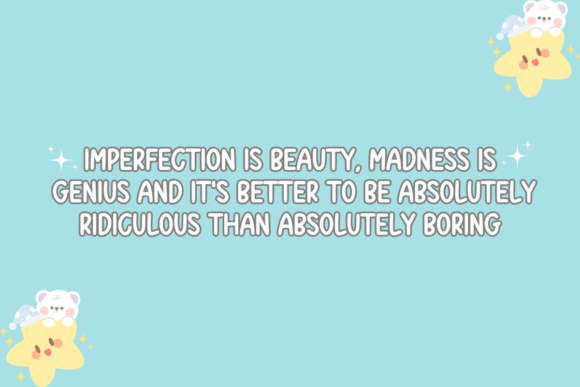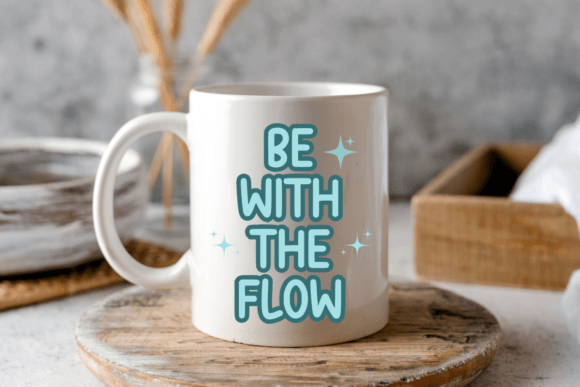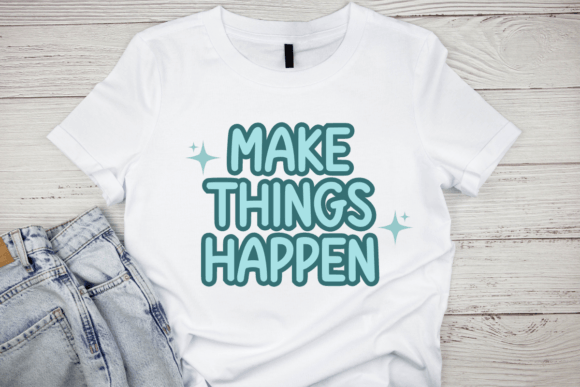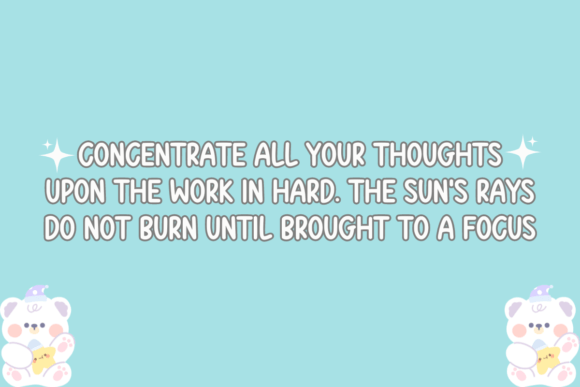
Introduction to Mother House Font
Have you ever stumbled upon the perfect font while browsing through design resources, and it instantly sparks an idea for your next creative project? That’s exactly what happened to many designers when they discovered the Mother House Font. This adorable sans serif font is not only visually appealing but also incredibly versatile, making it a valuable addition to any designer’s toolkit.
Whether you’re working on a new sticker design, crafting a personalized planner, or creating a custom SVG quote, the Mother House Font is the perfect choice. Its high-quality design ensures that your project will stand out from the crowd, and its transparent background makes it easy to use with various design elements. With the Mother House Font, you can take your creative projects to the next level, and that’s why it’s a must-have for designers who want to elevate their work.
Key Features of Mother House Font
- Features a transparent background, allowing for effortless layering and customization.
- Comes in a single weight, ideal for designers who want a clean and minimalist aesthetic.
- Designed with a modern and elegant feel, making it perfect for a wide range of creative projects, from branding to editorial design.
Honest Review: Mother House Font
I recently stumbled upon the Mother House Font, and I must say, it’s a fantastic addition to any designer’s library. The free download made it an instant winner in my book, and the transparent background is a great feature for any creative project.
- What works well: ✨ The high-quality design of the font is immediately noticeable. The unique and elegant style makes it perfect for a wide range of applications, from logos to titles.
- What works well: ✨ The font is highly versatile and can be easily customized to fit any design style.
While the Mother House Font excels in many areas, there are a few limitations to consider. ⚠️ The font may not be suitable for very small text sizes, as the details can get lost.
Overall, I’m very impressed with the Mother House Font. It’s a valuable design resource that can elevate any creative project. The high-quality design and transparent background make it a great choice for designers looking for a reliable and versatile font.
The Mother House Font is a free download that offers high-quality typography for your creative project. This versatile font features a transparent background, making it ideal for various design applications.
Tips for Getting the Most Out of Mother House Font
Use the Mother House Font in conjunction with other high-quality design resources to create a cohesive look.
Experiment with different font sizes and styles to add visual interest to your design.
The Mother House Font is ideal for:
Graphic design projects
Logo design
Infographics
Brochures and flyers
Comparison to Mother House Font: Great Vibes Font has a more refined and sophisticated look compared to Mother House Font, which has a more playful and whimsical feel.